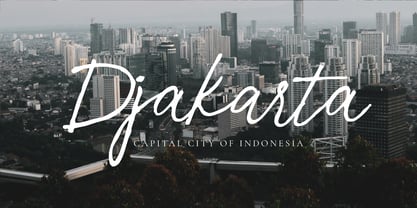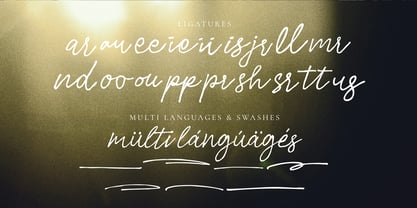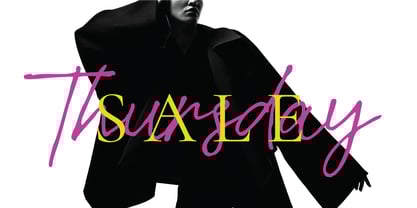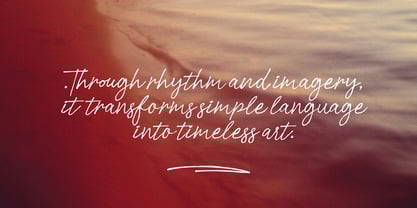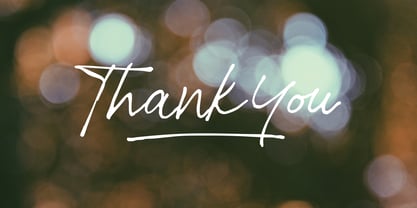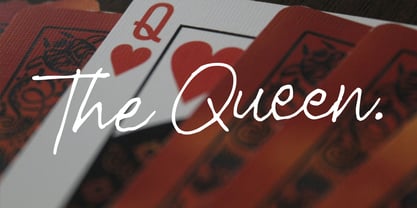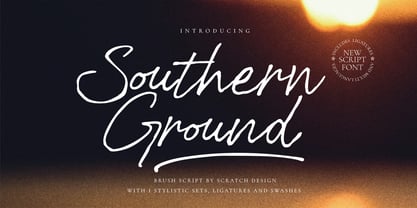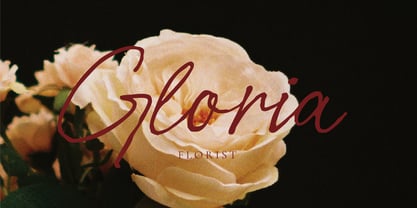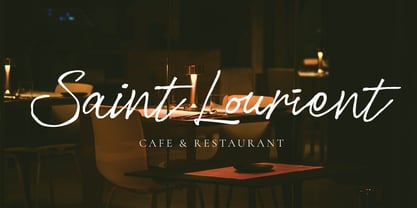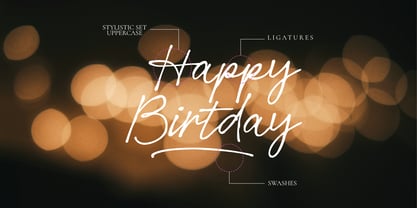
Southern Ground
The Southern Ground Font Family was designed by Gitayogi Irhandi and published by Scratch Design. Southern Ground contains 1 styles.
Discover the beauty of real hand-drawn ink from Scratch Design is the new brush-ink handwriting font are created to look exactly like writing with a real brush pen. Every letter carries authentic textured strokes, giving your design a natural signature feel that’s simple, elegant, and effortlessly stylish. Perfect for writing names, wedding invitations, posters, personal signatures, watermarks, branding, and even minimalist logo marks that need a touch of authenticity. This script font works beautifully on branding projects, packaging, social media graphics, stationery, business cards, editorial designs, and luxury visual identities. Featured with 1 set of alternates, expressive ligatures, and dynamic swashes, you can easily create a personalized handwritten look that fits any design direction you want. If you’re a designer looking for a clean, realistic, pen-written script font with rich ink texture effects this is the perfect addition to your font collection. Download it now and elevate your work with a signature look that feels truly handcrafted.